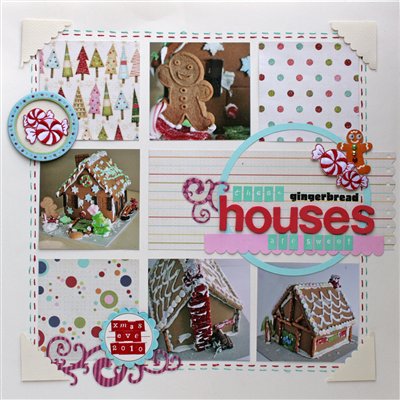
4 reasons why handwriting fonts are important in web designing
Although in web designing, normally other fonts are used but the handwriting fonts play the vital part if used. There are a number of fonts being used for designs, letters, office memos and for other purposes but when handwritten fonts are used, they instantly grab the attention and look great. Handwriting fonts are widely in used in all types of designing such as web designing, logo designing and other graphic designings.
Majority of the designers do not use the handwritten fonts because it is a common notion about them is that they look childish. But if seen carefully or even casually, they are more attention fetching and eye-pleasing than the others.
Below are the four reasons why handwriting fonts are important:
Add Personal Touch
While you see the handwritten font, you start thinking that something has been penned for you. You can judge the feeling by seeing an envelope with your print name and an envelope with your name as handwritten.
Attract the Eye
The fonts being used more commonly are Arial, Times New Roman, Veranda, Helvetica and others but when you compare handwriting fonts with them in designing, you automatically give preference to handwriting fonts over others. These fonts are much attractive to eyes as they instantly grab the attention and the users get curious to know what is written or presented on the web site!
Increase Readability
The readability is increased with the handwriting fonts. Handwriting fonts draw attention of the people to what is written on the page. The readers of the website will not want to miss whatsoever is mentioned there.
A Great Web Designing with Handwriting Fonts
It is often seen that some of the websites use the handwriting fonts in headers. It is apt to use it and much effective as well since it gets the users recognize your website. When they are used in eye-pleasing colors, they generate the oomph factor.